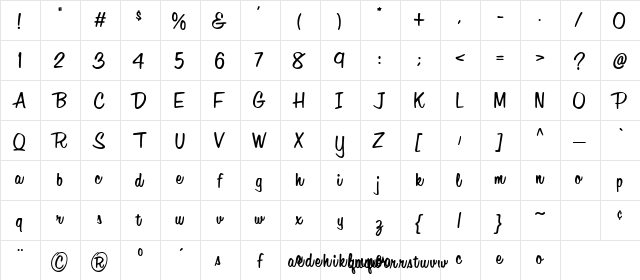
Hostess Regular
Design Context for Hostess Typeface
Hostess is a composed and adaptable typeface that performs quietly and consistently across a wide range of design contexts.